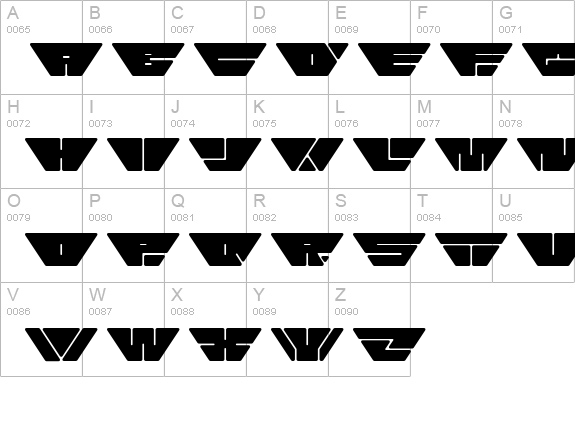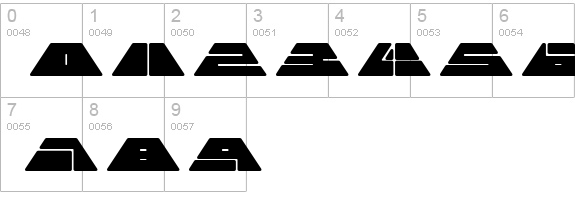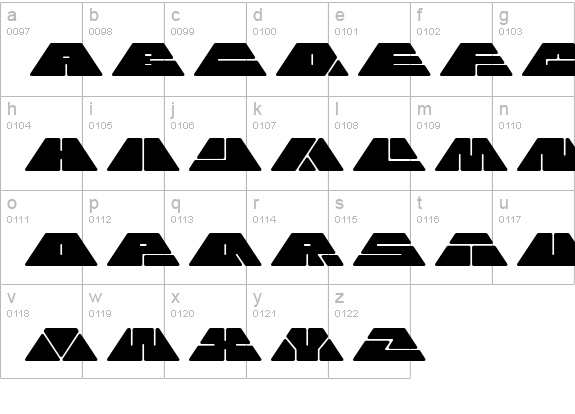
cashless Font Details
Introducing Cashless Font, a sleek and modern typeface designed for all your creative projects. With its clean lines and contemporary feel, Cashless Font is perfect for branding, logos, packaging, posters, and more. This versatile font exudes sophistication and style, making it a great choice for any design endeavor. The best part? Cashless Font is completely free to download at FontsMarket.com. Yes, you read that right - this high-quality font is available at no cost, allowing you to elevate your designs without breaking the bank. Don't miss out on the opportunity to add Cashless Font to your font collection and take your projects to the next level. Download it today and let your creativity shine!